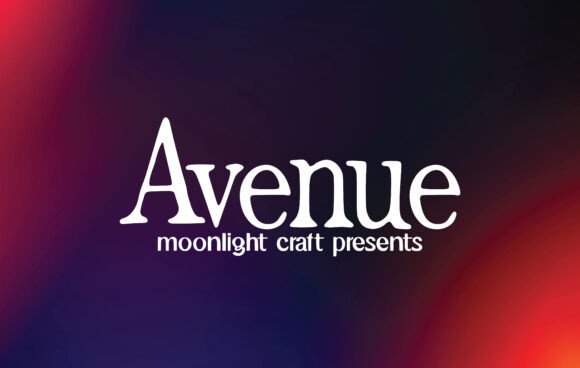
The Ultimate Design Companion: Avenue Font
Have you ever been in the middle of a design project, and suddenly, you’re stuck on finding the perfect font? I remember a particularly frustrating experience while working on a magazine cover design. My client wanted a font that was both stylish and easy to read, but I just couldn’t seem to find the right fit. That’s when I discovered Avenue Font, and it quickly became my go-to favorite. In this article, I’ll share with you why Avenue Font is a versatile, eye-catching, and fantastic addition to any design project.
What Makes Avenue Font Special?
Avenue Font is designed to bring your creative ideas to life. Its clarity and readability make it an excellent choice for both titles and body text. Whether you’re designing magazine covers, t-shirts, social media posts, branding, wedding invitations, or greeting cards, this font fits right in with style and personality.
What I Love About Avenue Font ✨
- ✅ Versatility: Avenue Font is incredibly versatile and can be used for a wide range of design projects.
- ✅ Readability: The font is clear and easy to read, making it perfect for both titles and body text.
- ✅ Style and Personality: Avenue Font brings a unique style and personality to any design project.
- ⚠️ Limited Language Support: Avenue Font may not support all languages, so it’s essential to check the font’s specifications before use.
- ⚠️ Glyph Limitations: While Avenue Font has an impressive range of glyphs, it may not have every special character you need.
The Story Behind Avenue Font
Avenue Font was designed with the goal of creating a versatile and stylish font that could be used for a wide range of design projects. The designer aimed to create a font that was both modern and timeless, with a unique personality that would stand out in any design.
Q: What is Avenue Font?
A: Avenue Font is a versatile and stylish font designed for use in a wide range of design projects, from magazine covers to social media posts.
Q: Is Avenue Font easy to read?
A: Yes, Avenue Font is clear and easy to read, making it perfect for both titles and body text.